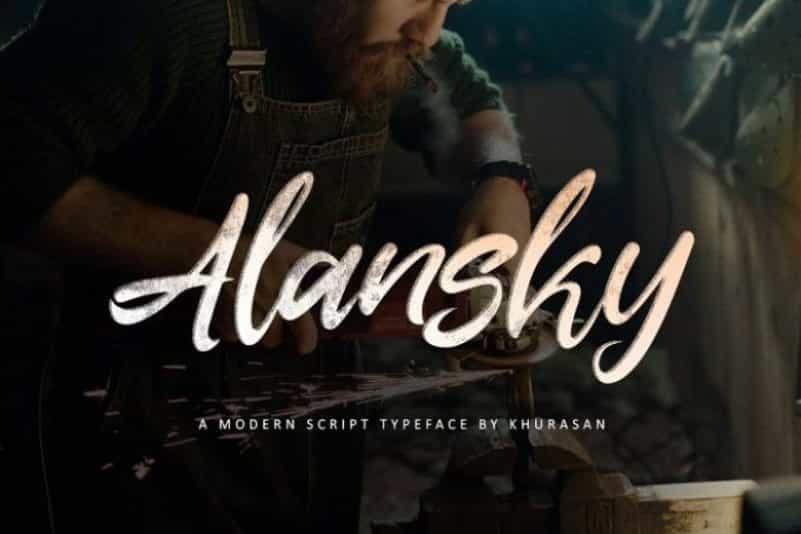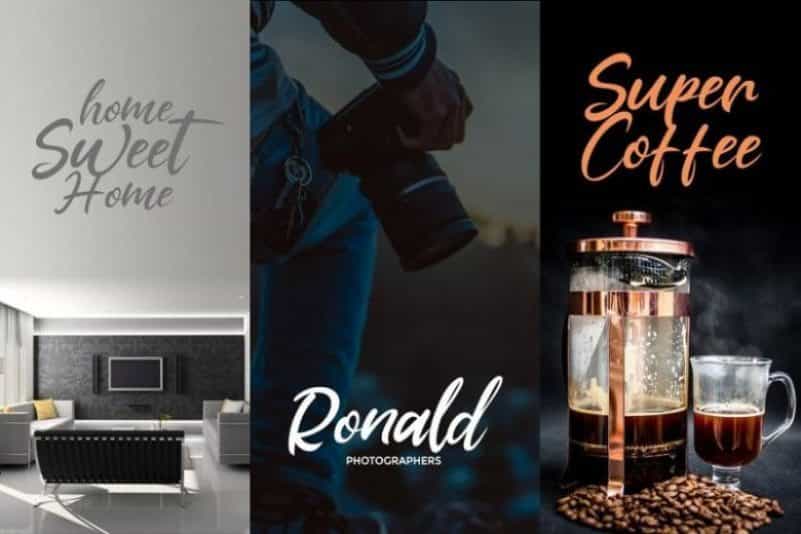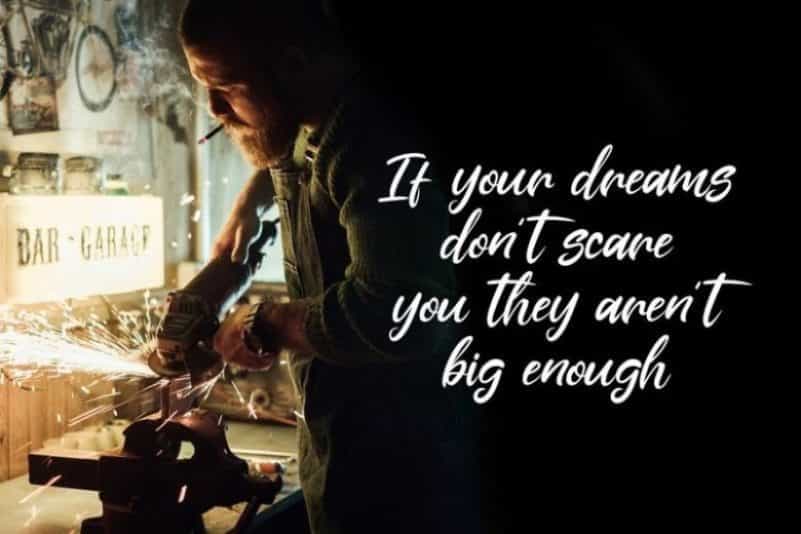
Alansky is a script typeface which has its own character. You can make it the logo, badge, insignia, packaging, headline of a poster or t-shirt/apparel as well as greeting card and wedding invitation. The running characters are perfect to make a good-looking message, choose the right ones among Alansky and other alike letters that will be most suitable for your project.